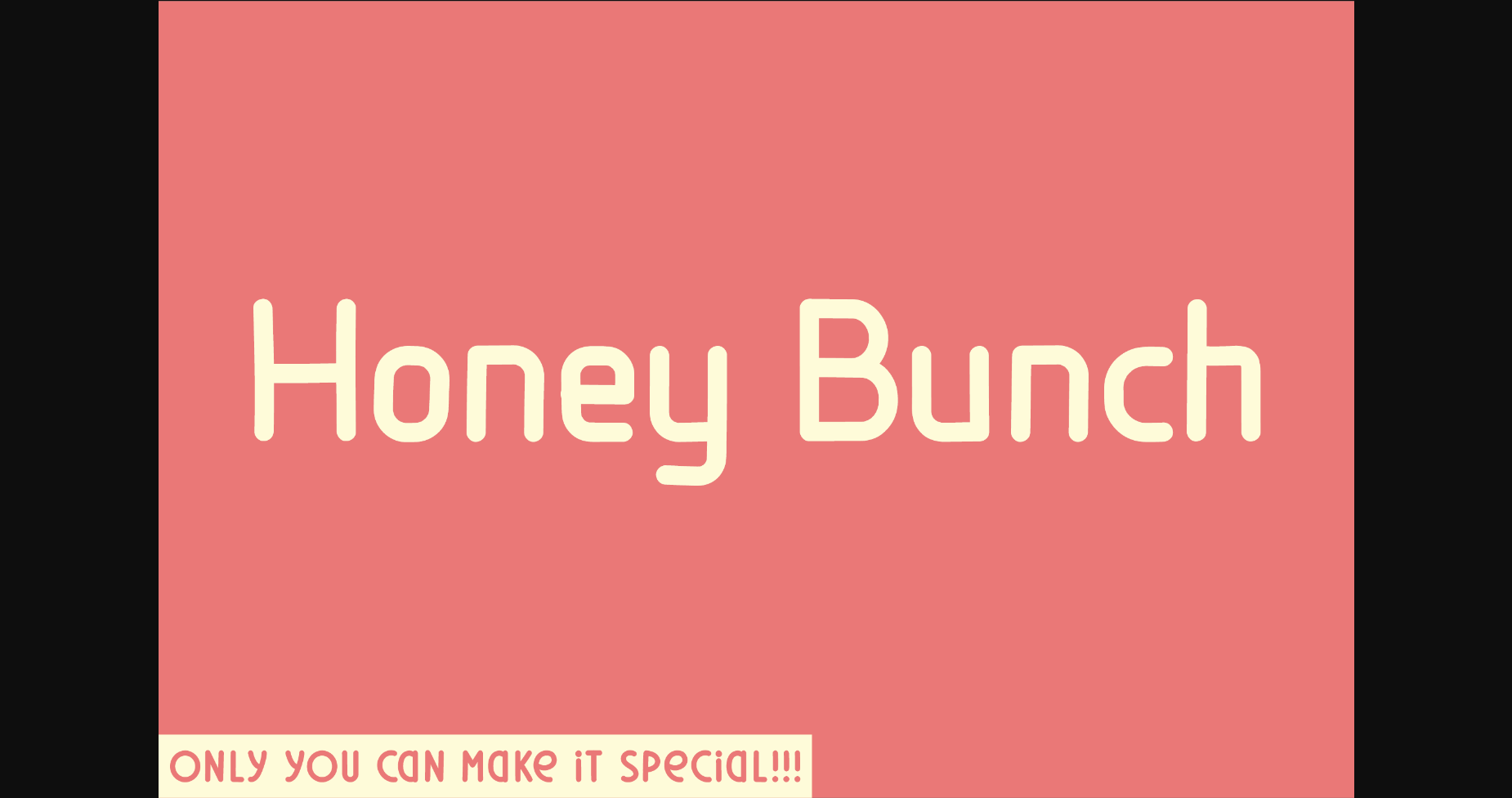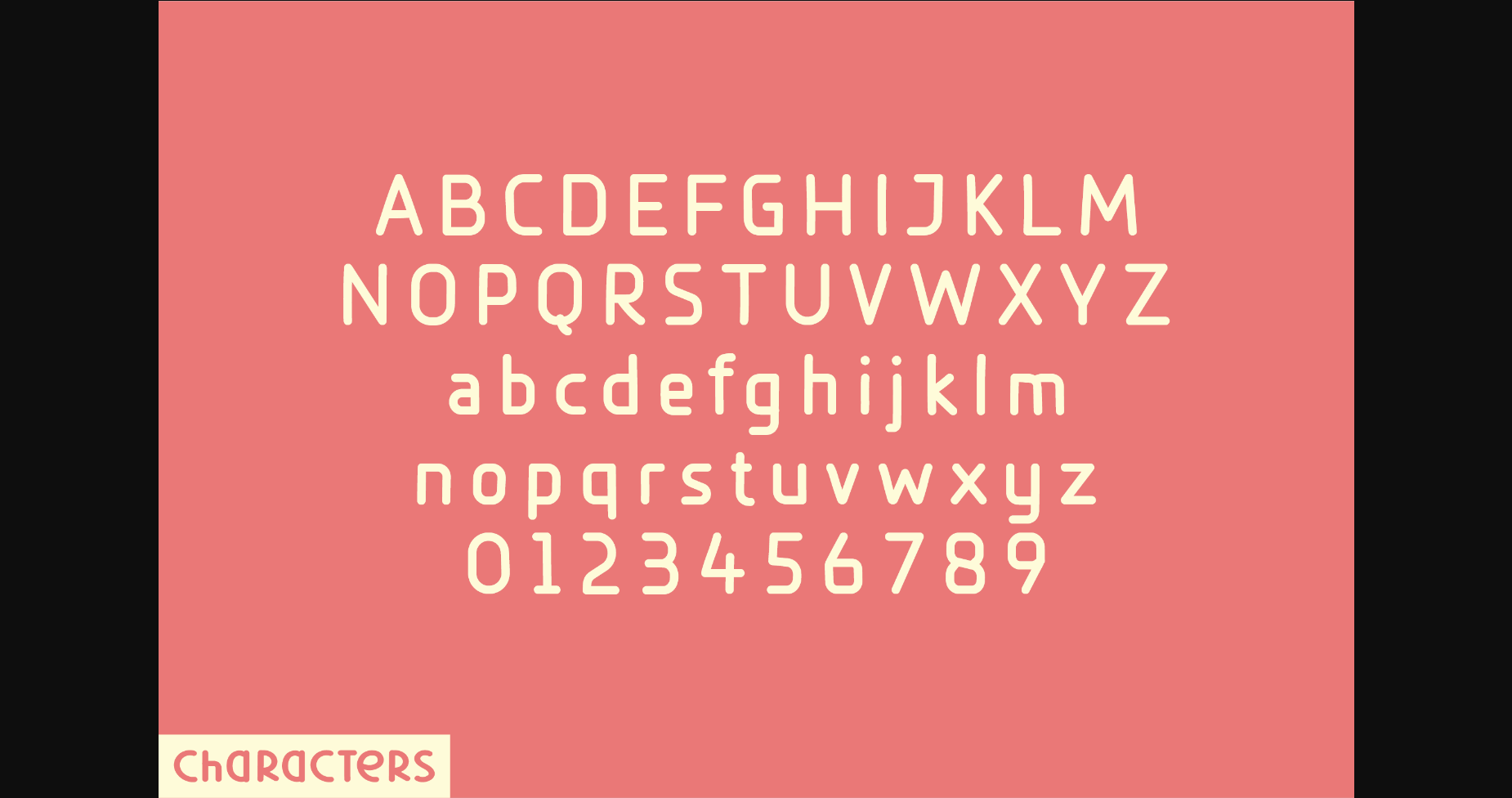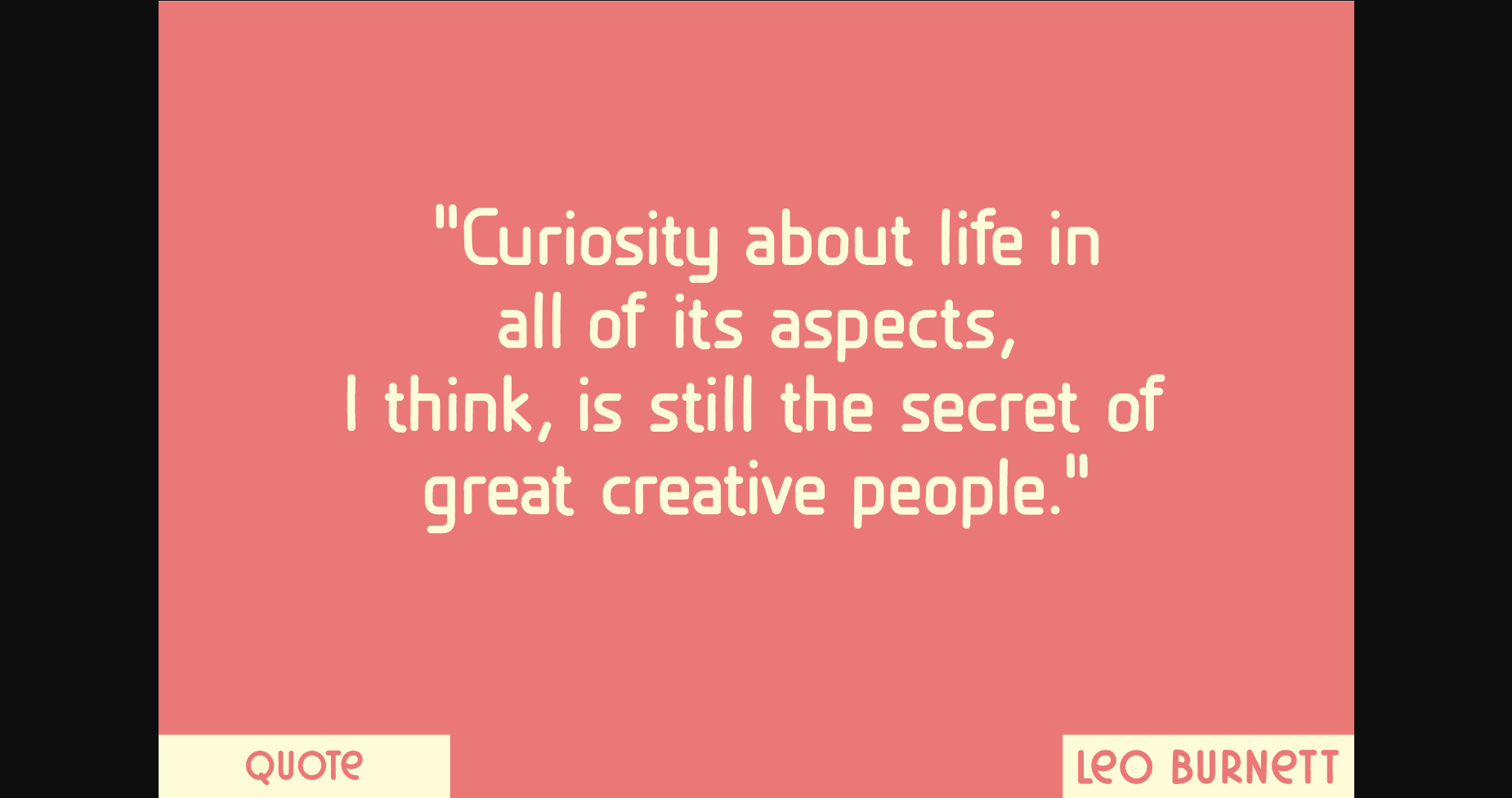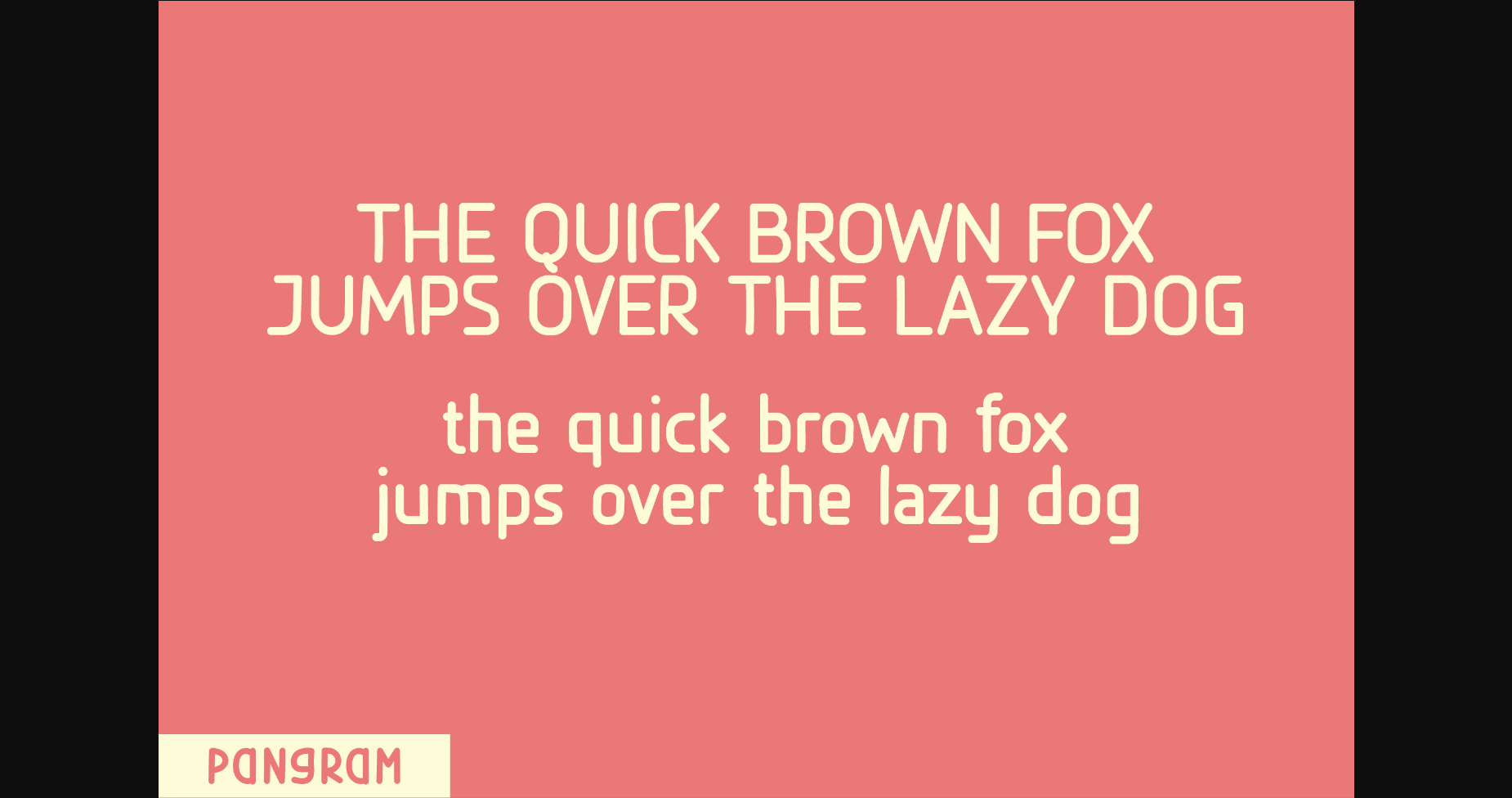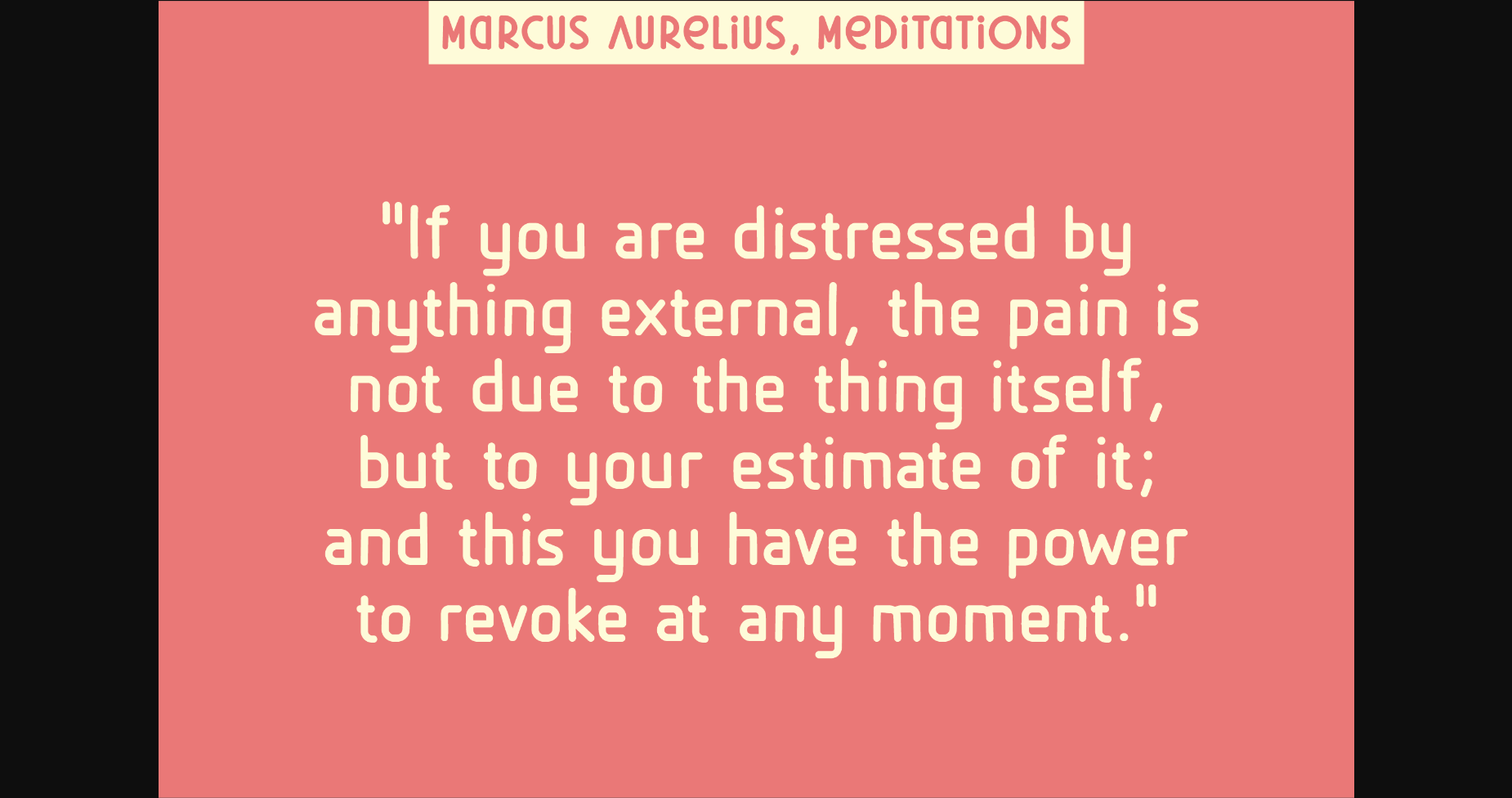
Honey Bunch Font
About Honey Bunch Font
Honey Bunch is a bold and unique sans serif font, perfect for quotes, notes, tees, logos, social media and any design that requires a classic touch.